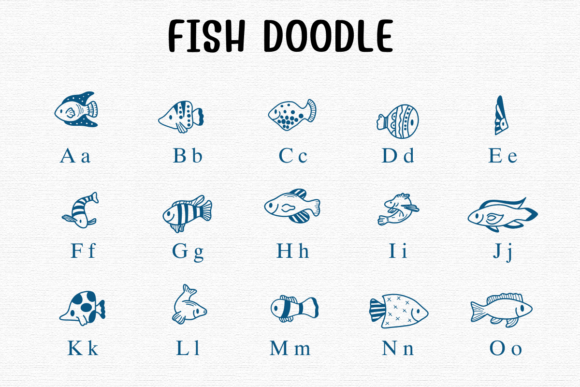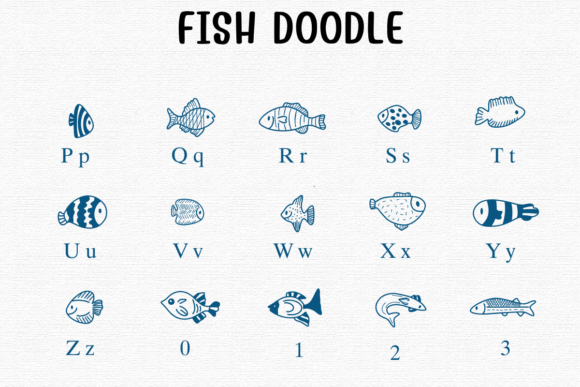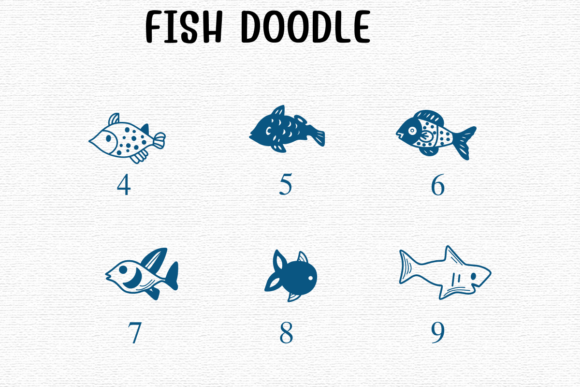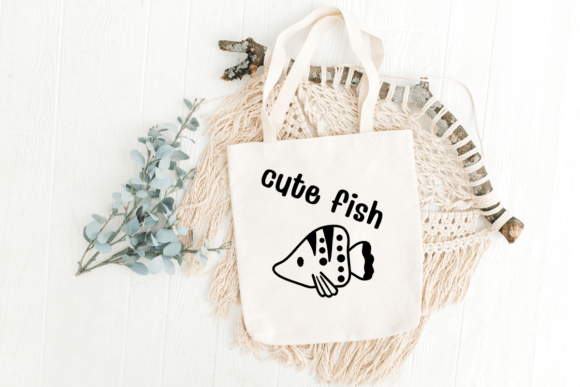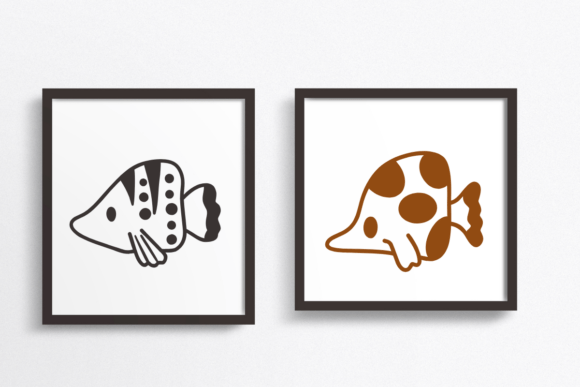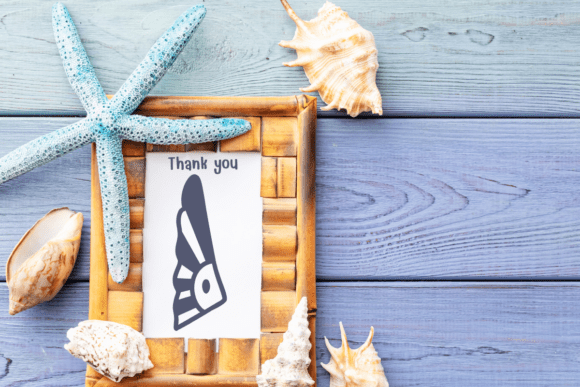
Hooked on Creativity: Discover the Fish Doodle Font
Have you ever stared at a blank page, waiting for inspiration to strike? It’s that moment when the world of possibilities seems endless, and the right tool can make all the difference. For designers, the perfect font can be the key to unlocking a project’s full potential. That’s where the Fish Doodle Font comes in – a playful dingbats font that’s about to become your new best friend.
This charming font is filled with a delightful array of whimsical fish illustrations, perfect for adding a splash of creativity to your designs. From beach-themed projects to kids’ materials, the Fish Doodle Font is an ideal choice for ocean-inspired branding and underwater adventures. Its hand-drawn aquatic icons are not only visually appealing but also incredibly versatile, making it a valuable addition to any designer’s toolkit.
Fish Doodle Font Key Features
- Unique Characteristics: Fish Doodle Font features a playful, hand-drawn design with a fishbone-inspired motif, making it perfect for adding a touch of whimsy to children’s books, educational materials, and other creative projects.
Fish Doodle Font Review
I recently had the chance to work with the Fish Doodle Font, and I must say it’s a unique addition to any design project. ✨ The playful, hand-drawn style is perfect for creating a fun and lighthearted atmosphere. It’s great for projects that need a bit of whimsy, such as children’s books, party invitations, or social media graphics.
Some of the strengths of Fish Doodle Font include:
- Customizable: The font is highly customizable, allowing you to adjust the size, color, and even add custom doodles to create a one-of-a-kind look.
- Fun and playful: The hand-drawn style is sure to bring a smile to the user’s face, making it perfect for projects that need a bit of personality.
- Easy to use: The font is relatively easy to use, even for those with limited design experience.
However, there are a few limitations to keep in mind:
- Not ideal for formal projects: While Fish Doodle Font is perfect for casual projects, it may not be the best choice for formal documents or presentations.
- Limited font variations: While the font is highly customizable, there are limited font variations to choose from.
Overall, I think Fish Doodle Font is a great addition to any designer’s toolkit. While it may not be the best choice for every project, it’s perfect for those that need a bit of fun and personality. With its customizable options and playful style, it’s sure to bring a smile to the user’s face.
Tips and Tricks
For the most out of Fish Doodle Font, use it in combination with colorful illustrations and playful graphics. You can also experiment with different font sizes and colors to create visual interest.
Fish Doodle Font is perfect for:
- Children’s party invitations
- Food and drink labels
- Wedding decorations and invitations